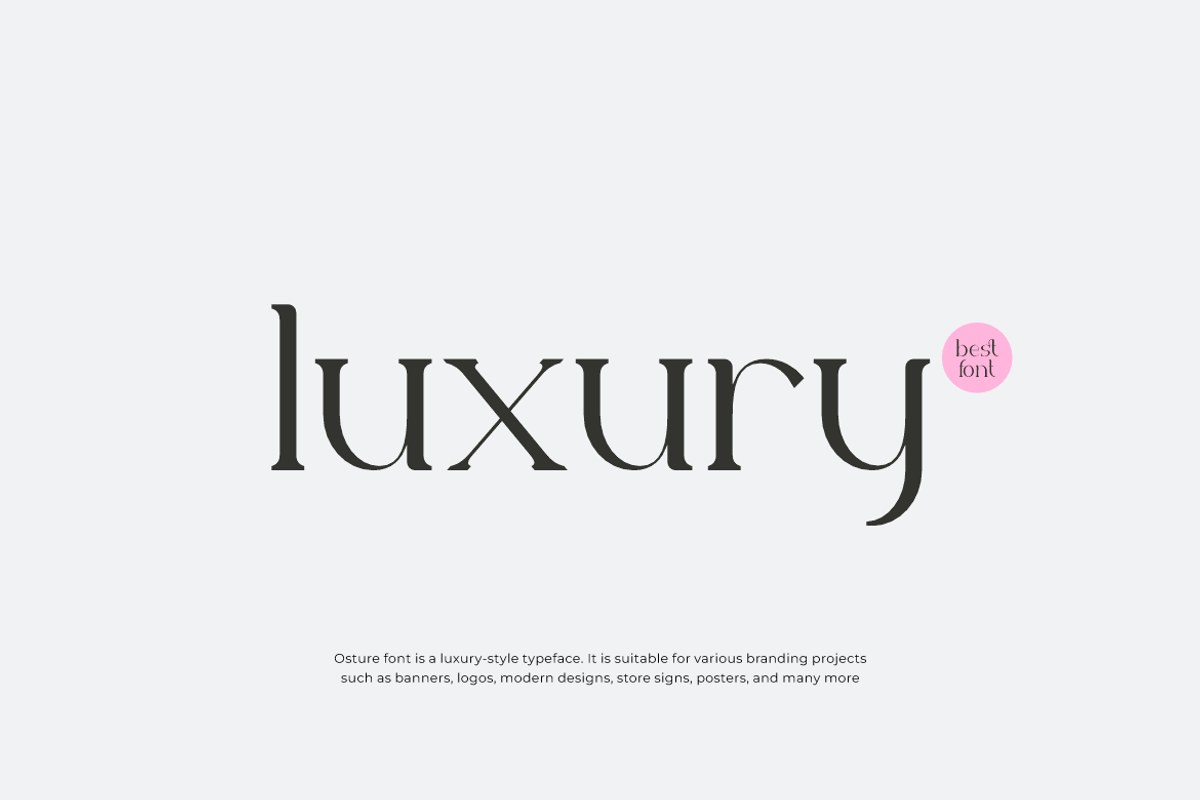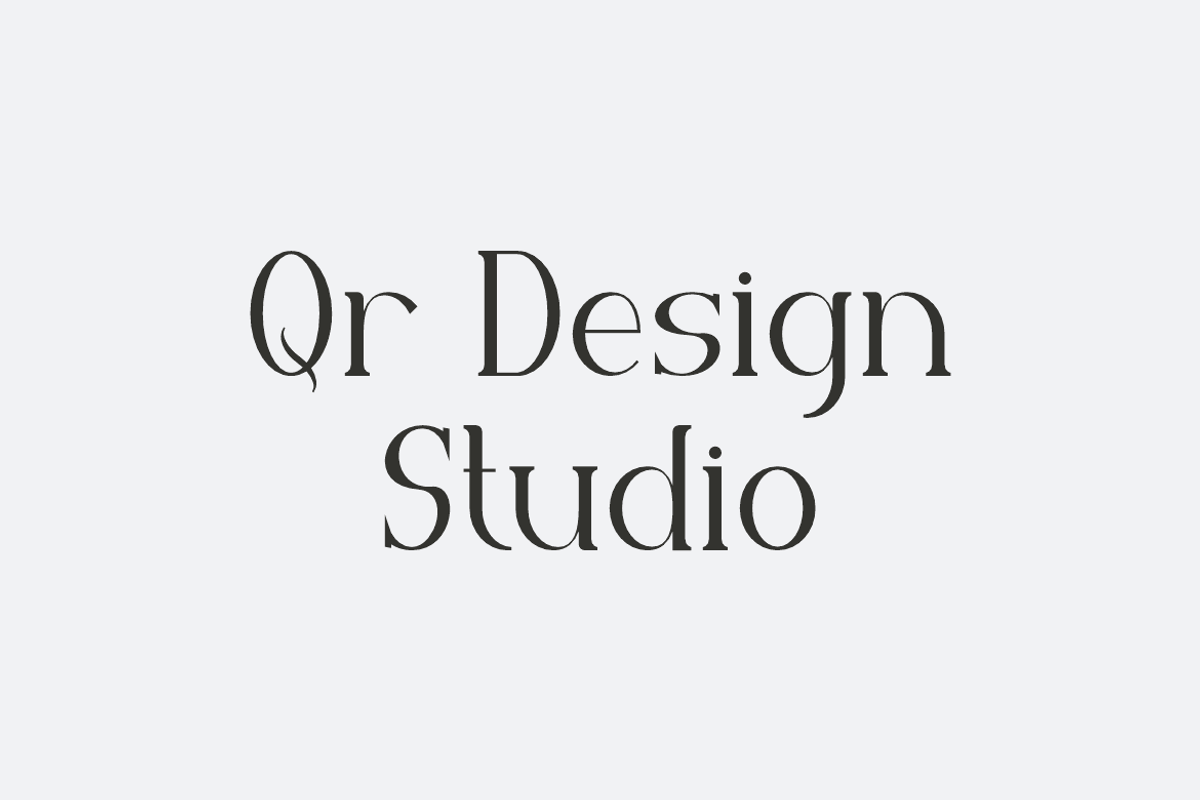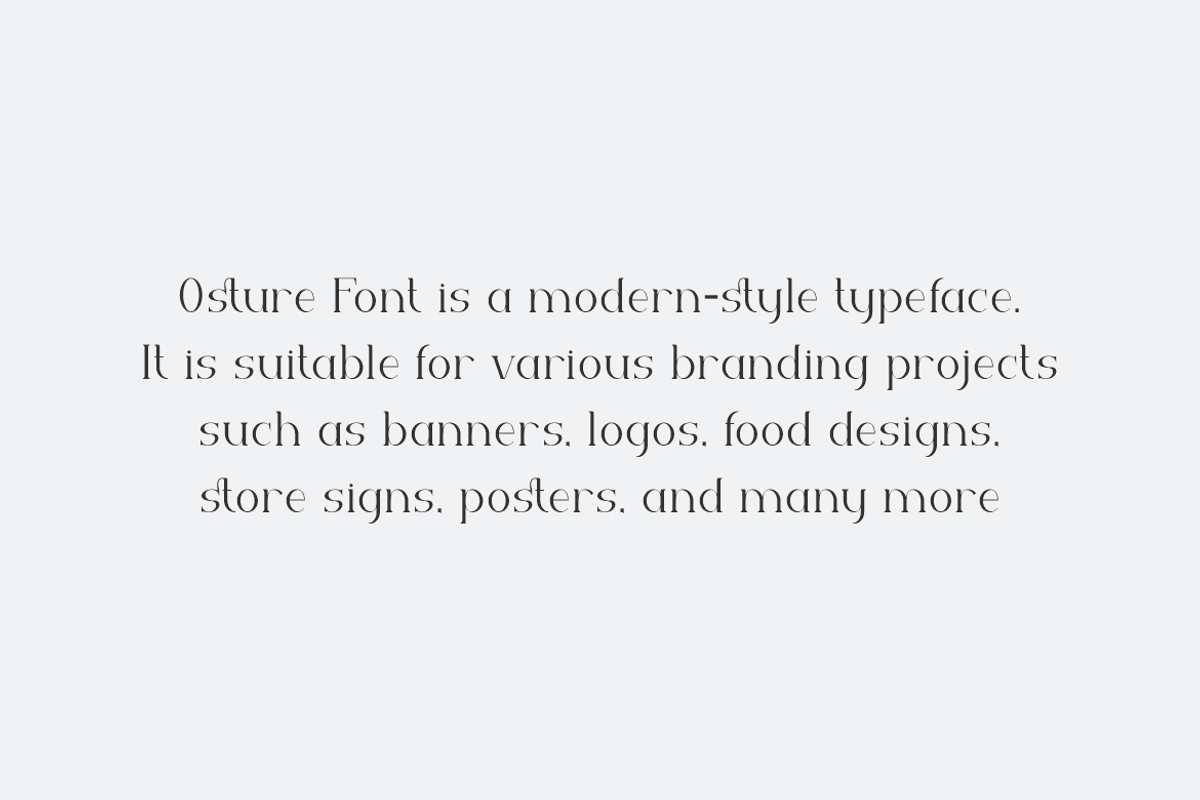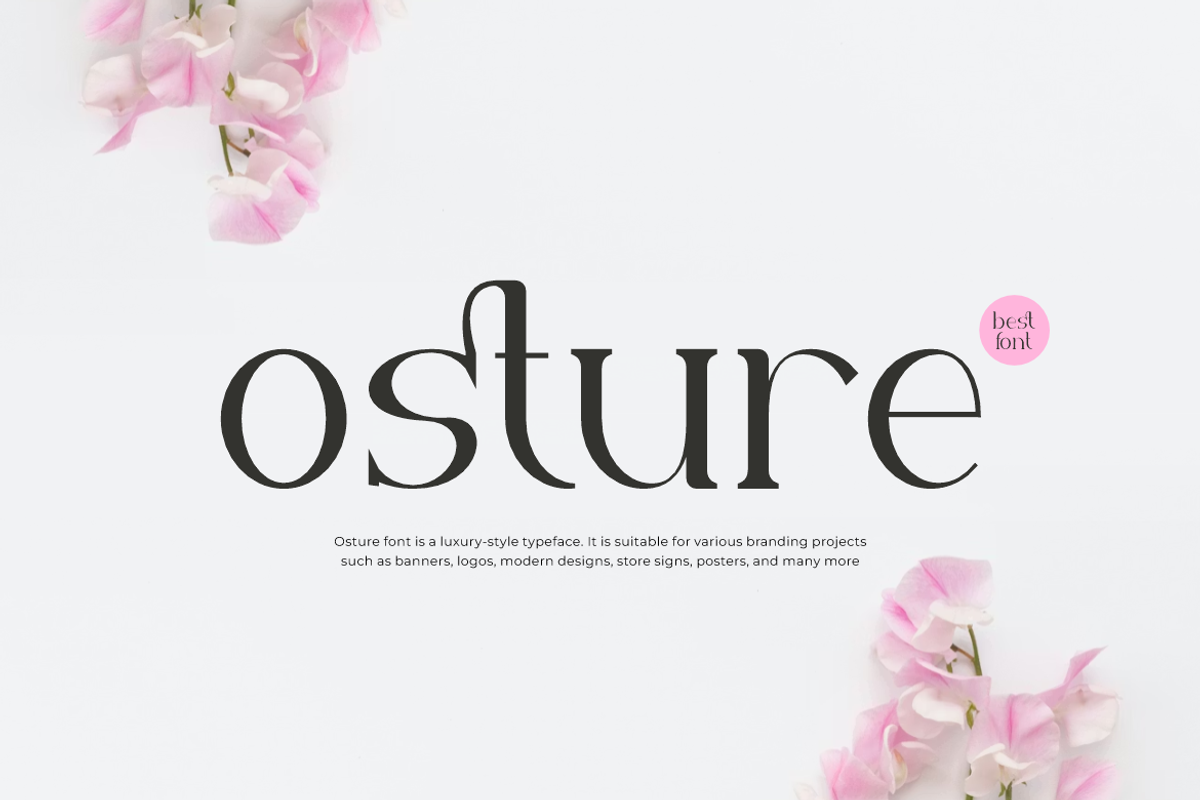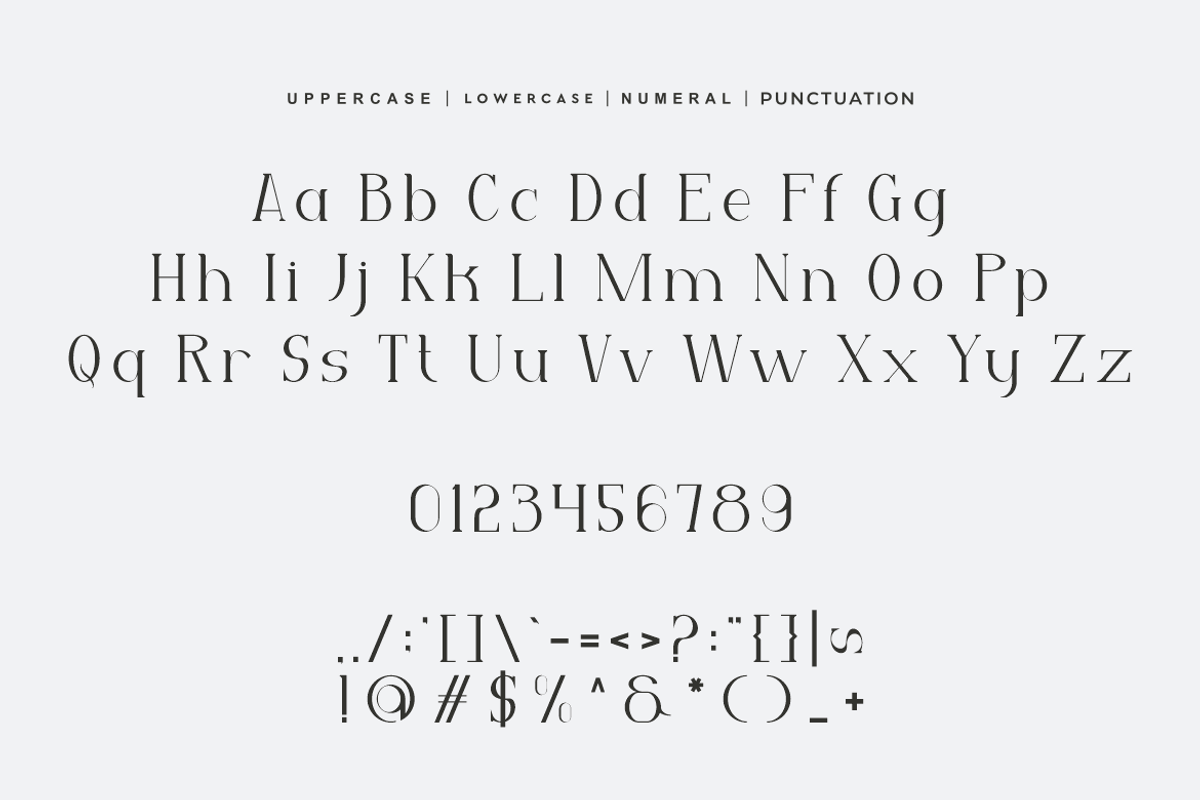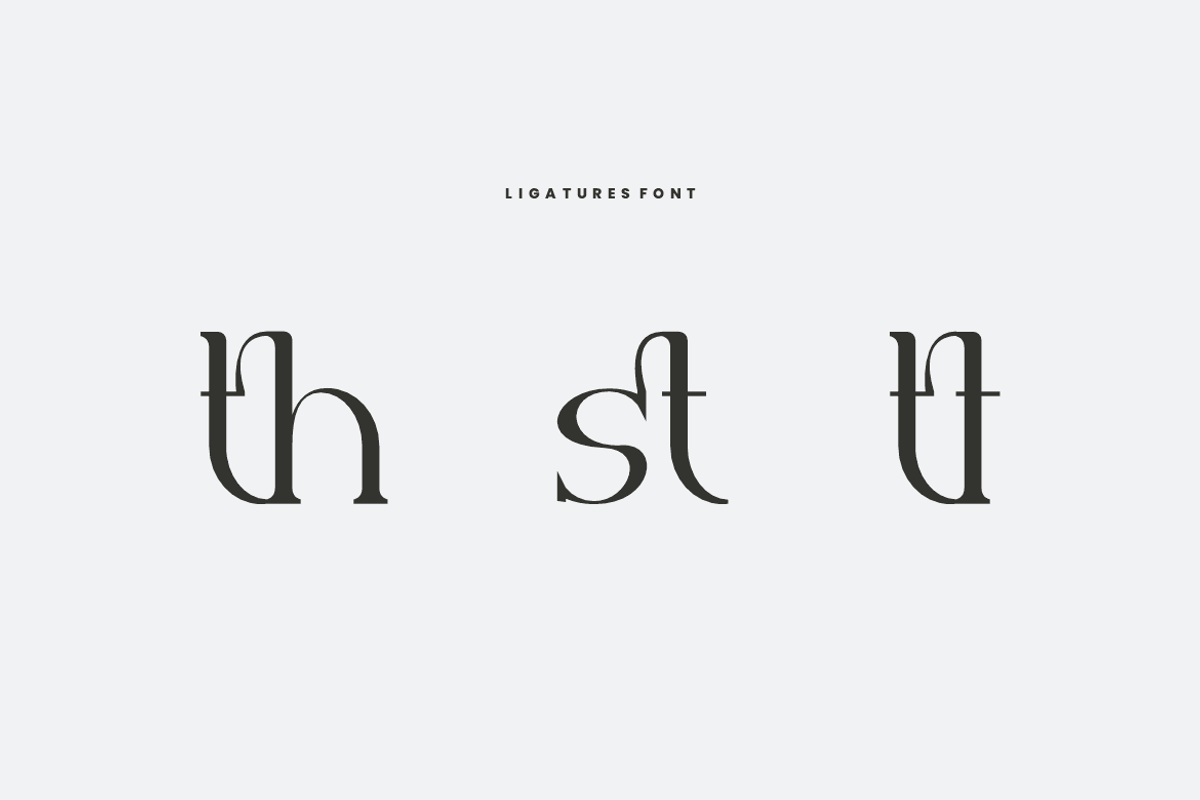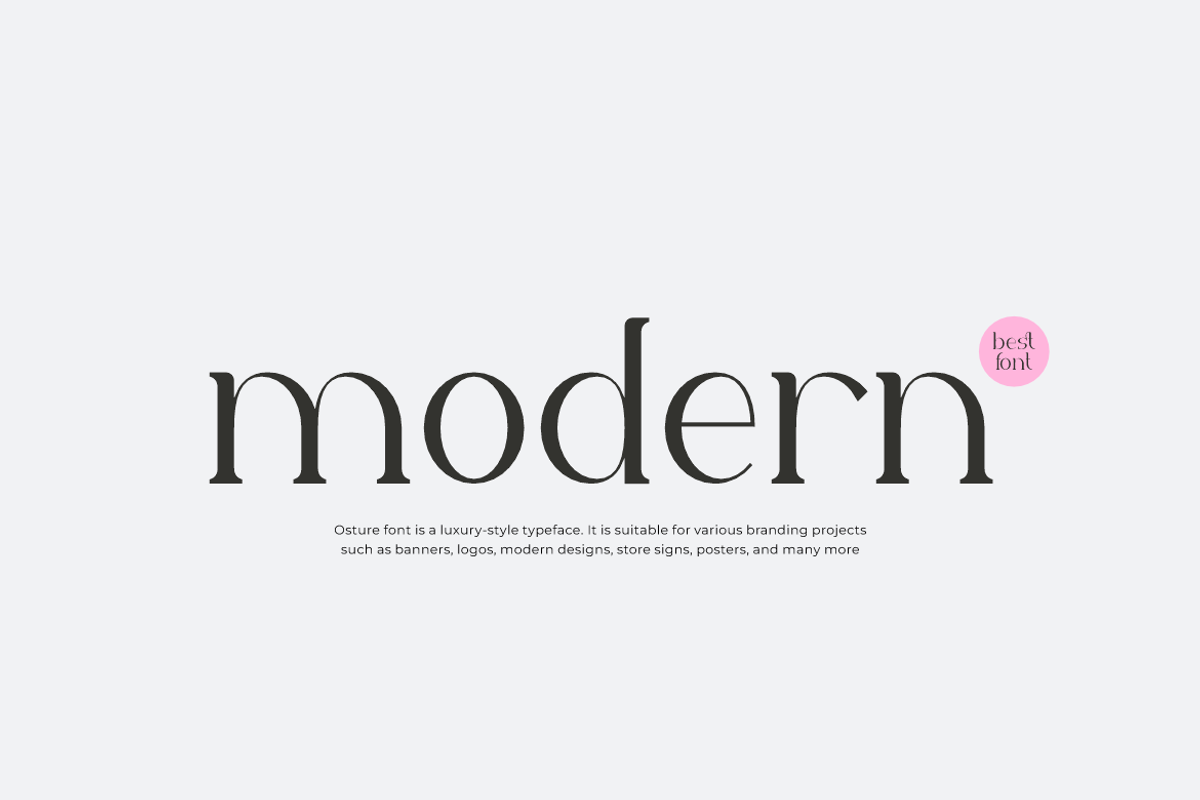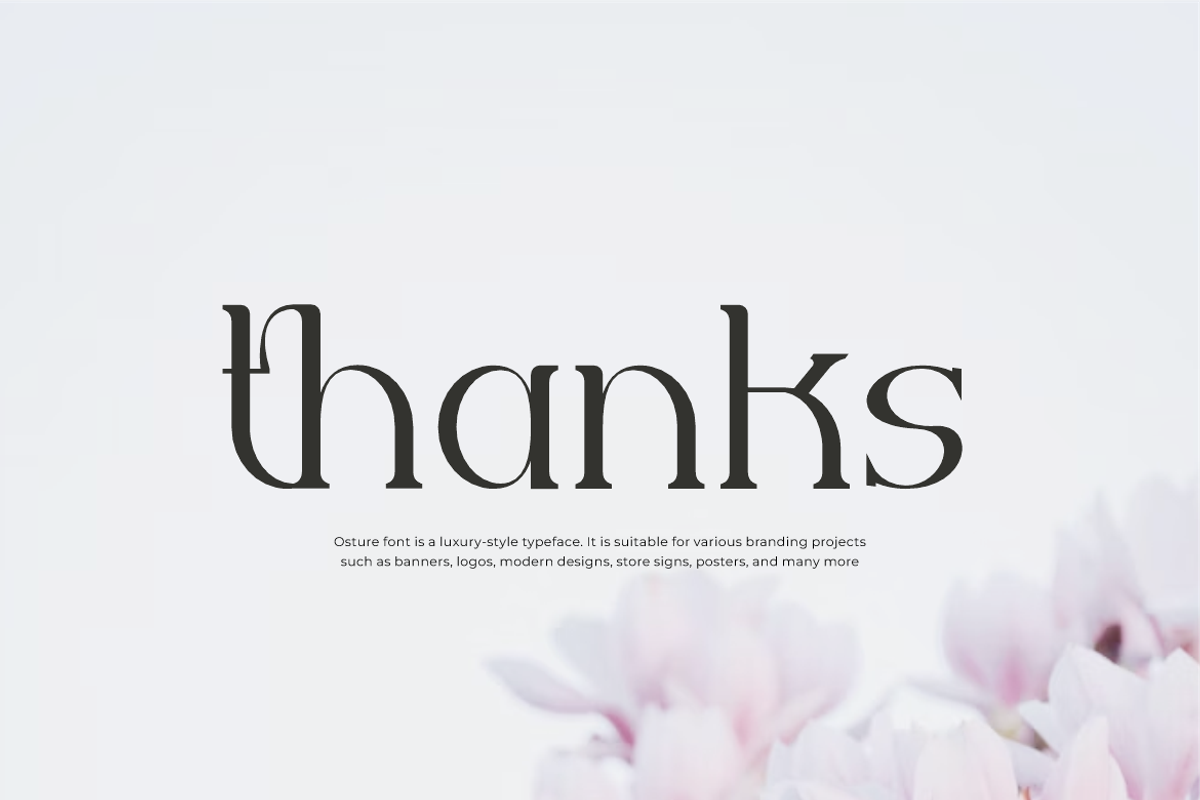
Osture - Luxury Font
Osture Font is a serif and authentic display typeface. It’s perfect for various branding projects such as logos, modern designs, and more. This font stands out beautifully in a wide range of contexts.